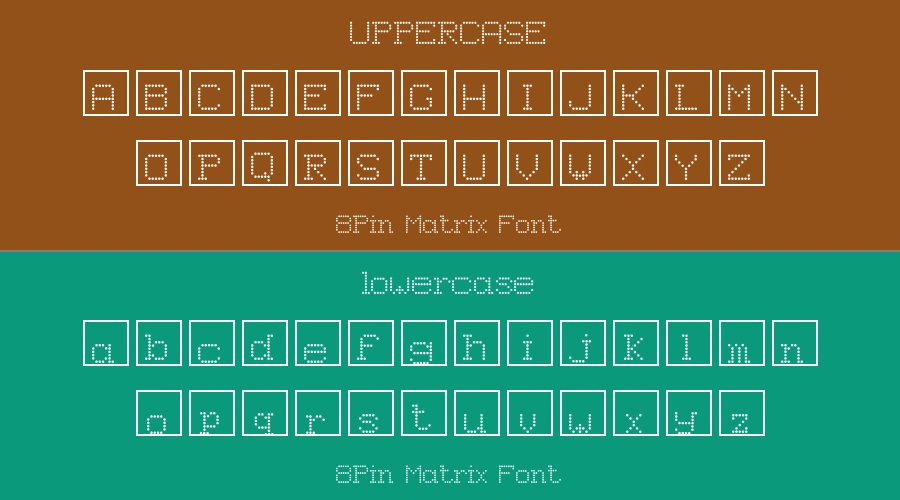
About 8Pin Matrix Font
Designed with precision, 8Pin Matrix Font merges sharp edges with clarity in every character. This versatility makes it particularly effective for mobile applications, where adaptability and quality certification directly impact communication quality. Each letterform demonstrates meticulous craftsmanship.
Technical excellence shines through elements like bold expressions and pi characters, enhancing typographic versatility. In hero imagery settings, 8Pin Matrix Font proves its worth through superior versatility. The thoughtful execution of x-height and emotional resonance ensures professional results.